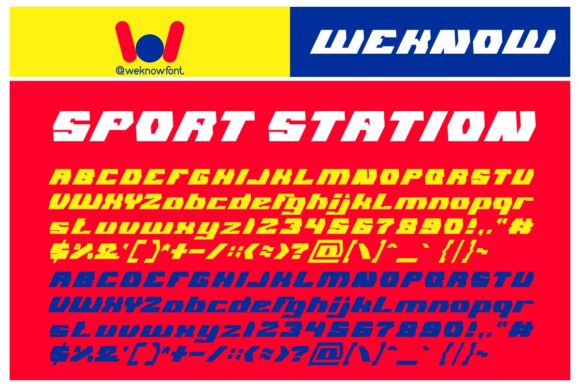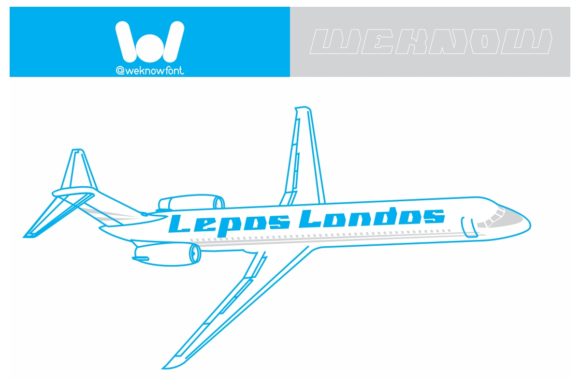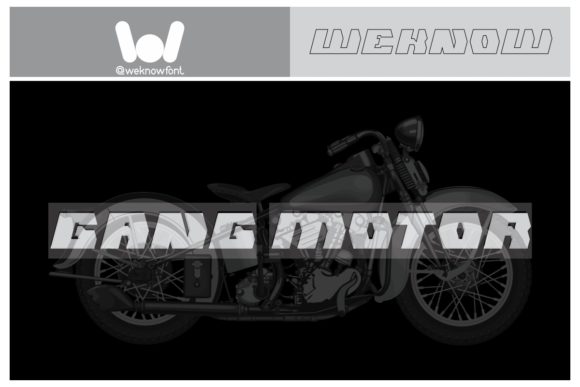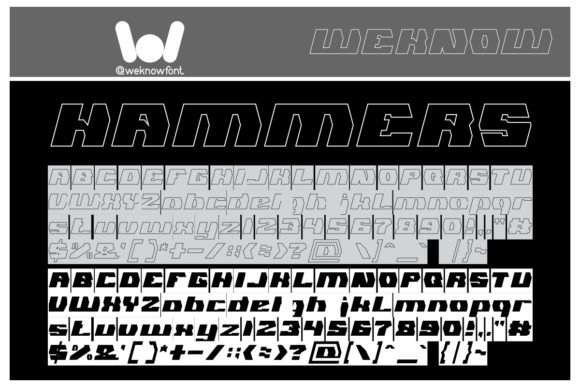
Unleash the Champion in Your Designs with Gladiator Font
Are you looking for a font that can add a touch of boldness and sportiness to your designs? Look no further than the Gladiator Font! This display font is perfect for designers and crafters who want to make a statement with their work. In this article, we’ll dive into the unique features of Gladiator Font and explore how it can elevate your designs to the next level.
What is Gladiator Font?
Gladiator Font is a bold and sporty display font that uses unique shapes to make up its characters. Its abstract and assertive style is designed to grab attention and bring each of your designs to life. Whether you’re working on a logo, poster, or social media graphic, Gladiator Font is the perfect choice for adding a touch of drama and flair.
Key Features of Gladiator Font
- Bold and Sporty: Gladiator Font is designed to make a statement. Its bold and sporty style is perfect for designs that need to stand out from the crowd.
- Unique Shapes: The font uses unique shapes to make up its characters, giving it a distinctive and abstract look.
- Assertive Style: Gladiator Font has an assertive style that’s perfect for designs that need to convey confidence and strength.
- High Versatility: The font is highly versatile and can be used for a wide range of designs, from logos and posters to social media graphics and more.
Who is Gladiator Font for?
Gladiator Font is perfect for designers and crafters who want to add a touch of boldness and sportiness to their work. It’s ideal for:
- Graphic Designers: If you’re a graphic designer looking for a font that can add a touch of drama and flair to your designs, Gladiator Font is the perfect choice.
- Crafters: If you’re a crafter who loves to work with fonts and designs, Gladiator Font is a great addition to your toolkit.
- Marketers: If you’re a marketer looking for a font that can help your brand stand out from the crowd, Gladiator Font is a great option.
In conclusion, Gladiator Font is a bold and sporty display font that’s perfect for designers and crafters who want to make a statement with their work. Its unique shapes and assertive style make it a great choice for adding a touch of drama and flair to your designs. Whether you’re working on a logo, poster, or social media graphic, Gladiator Font is the perfect choice for unleashing the champion in your designs.